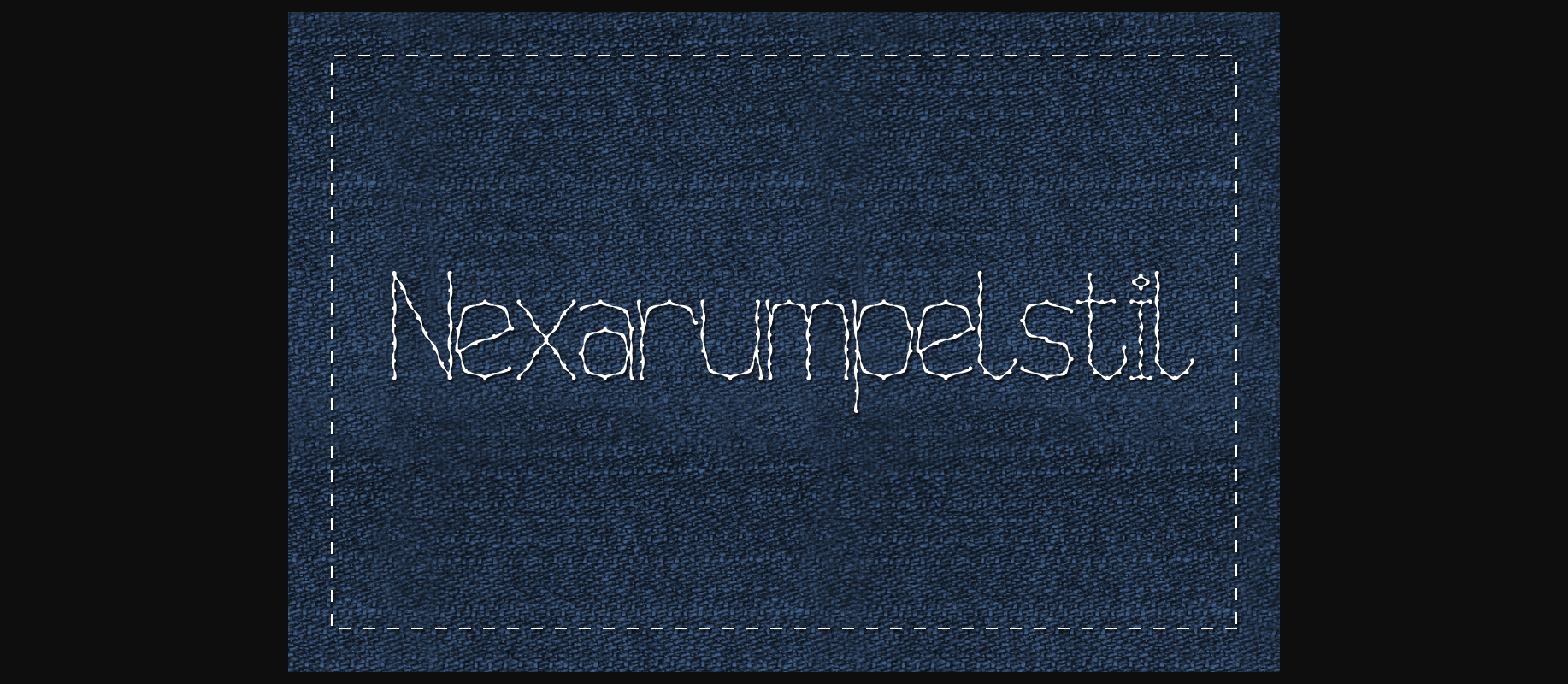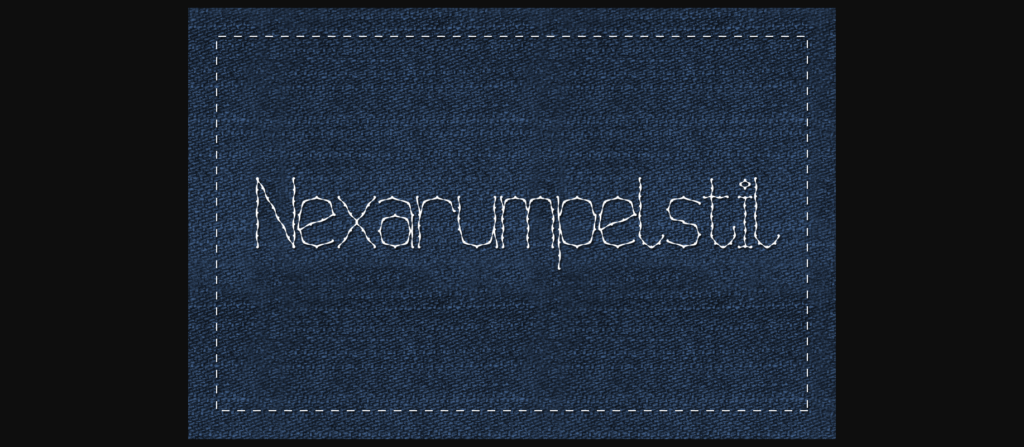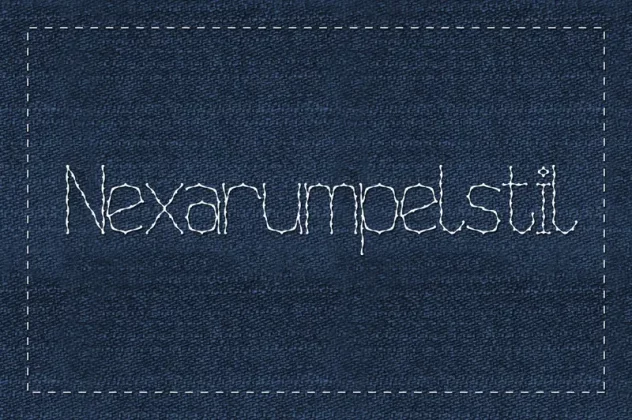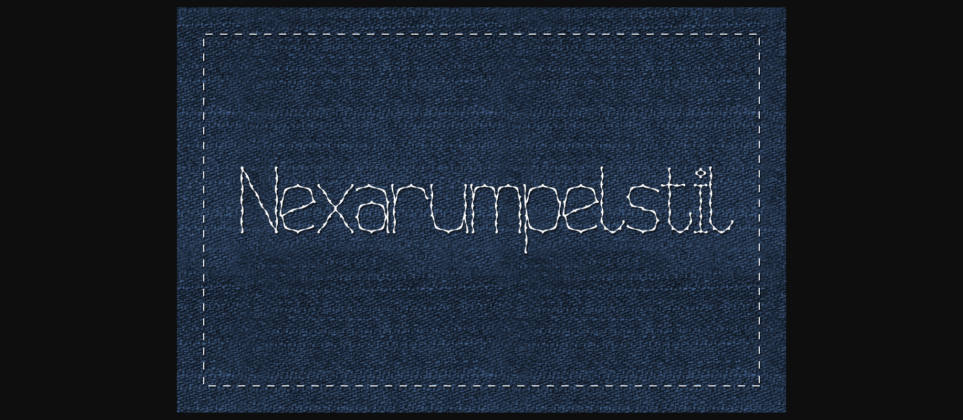
Nexarumpelstil Font
About Nexarumpelstil Font
Nexarumpelstil is a decorative font crafted to give a hand-stitched feel to your projects; use to give your projects an approachable, realistic feel.